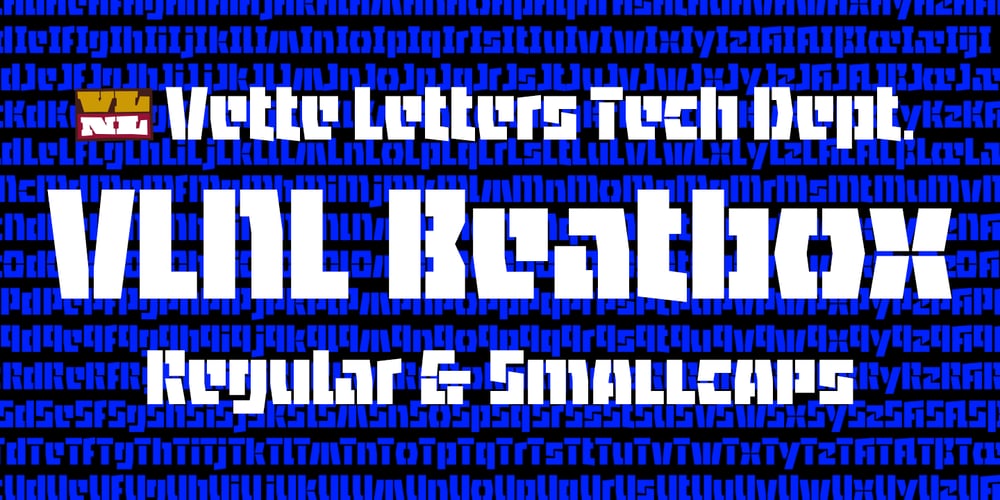
VLNL Beatbox
VLNL Beatbox font
VLNL Beatbox Font Family was designed by Donald Beekman and published by VetteLetters. VLNL Beatbox contains 2 styles and family package options. VLNL Beatbox is a solid tech heavy straight stencil-face with a lot of character. It was originally designed as a logo for dj Markus Schultz back in 2004, who rejected it. His management couldn’t read it, or thought people wouldn’t be able to read it. But Chef Donald DBXL found the concept interesting enough to finish it and has used it in many projects since. It was the identity font for the Battle of Amsterdam, a talent showcase in beat boxing and other skills. Beatboxing is a style of hiphop music (beats) made with the mouth and a microphone. A box is a handy container to store stuff. Like food, or fonts. We use a lot of boxes at the VetteLetters office.VLNL Beatbox is best deployed big, like in logos or headlines. Or flyers, album covers, posters and signage. As a display and headline typeface it’s got a lot of character. We could definitely see it painted on the side of a tank, or an airplane. It’s heavy, but not at all dangerous. Use it without risk.VLNL Beatbox comes in two variations; Regular and Small (smallcaps)